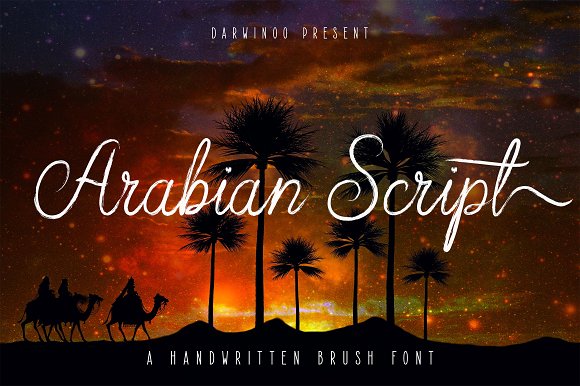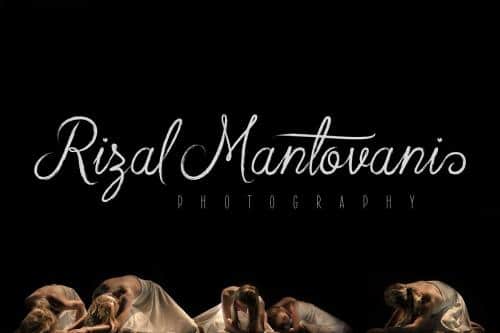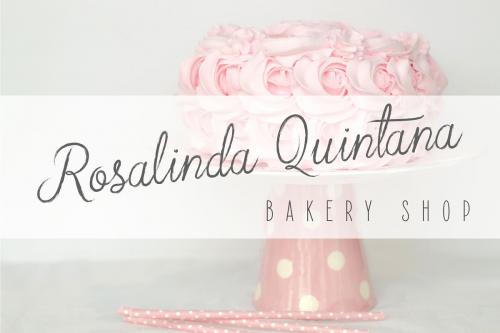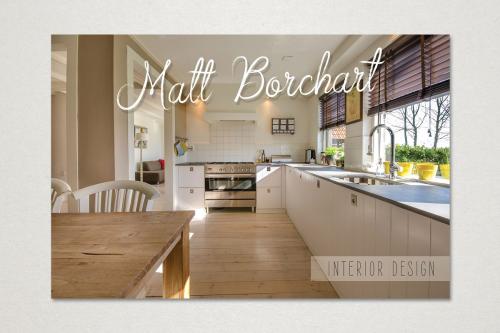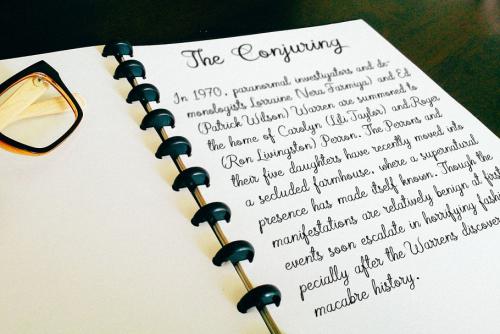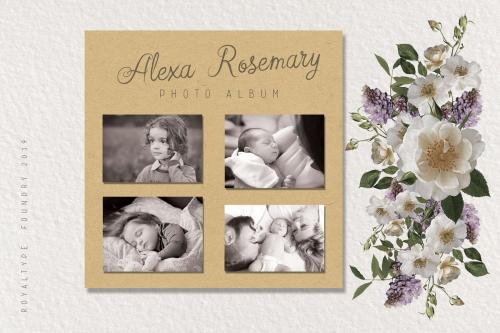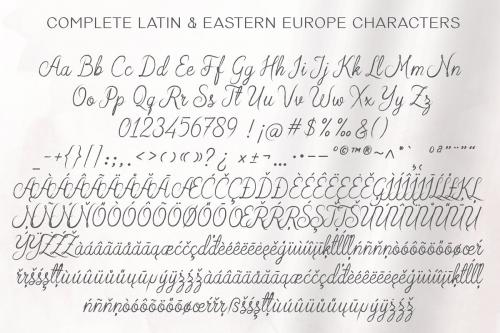
Arabian Script Font has semibold weight with textured shape, will nice for your wedding invitation, product package, logo, title, subtitle, flyer, quotes, etc.
- Designer: Royaltype